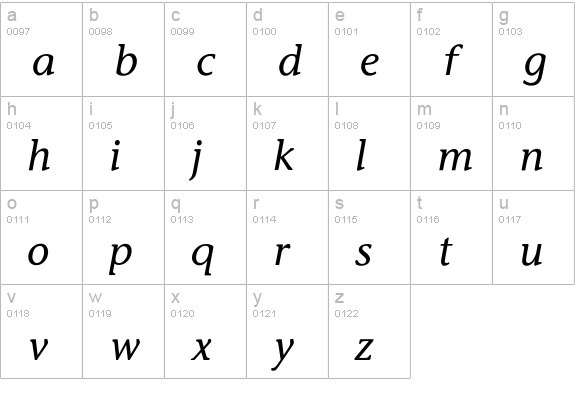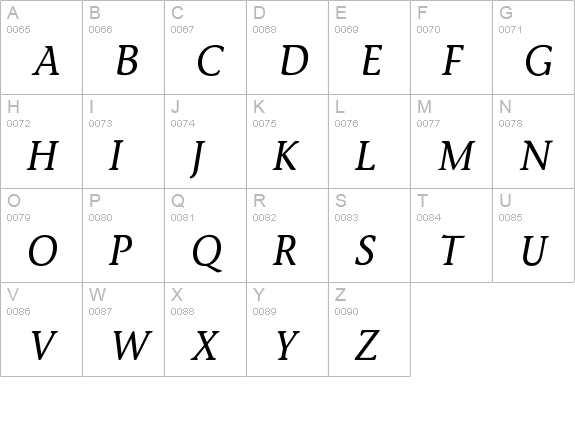
StoneInfMediumItalic Font Details
StoneInfMediumItalic font is a modern and sophisticated typeface that exudes elegance and professionalism. With its sleek design and subtle italics, this font is perfect for adding a touch of refinement to any project. The clean lines and balanced spacing make it easy to read both in print and on screen. Best of all, StoneInfMediumItalic font is available for free download at FontsMarket.com. Whether you're working on a website, a presentation, or any other design project, this font is a versatile choice that will elevate your work to the next level. Don't miss out on the opportunity to enhance your designs with this exceptional typeface, download StoneInfMediumItalic today for free!